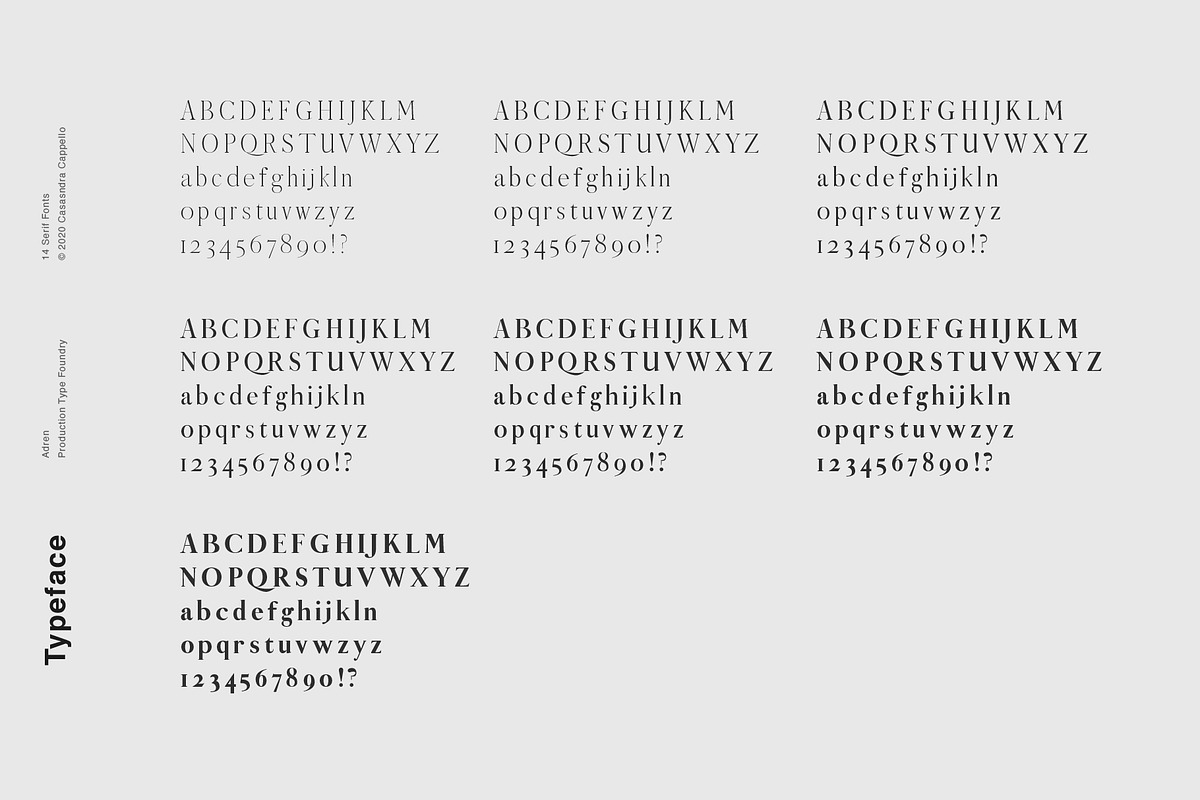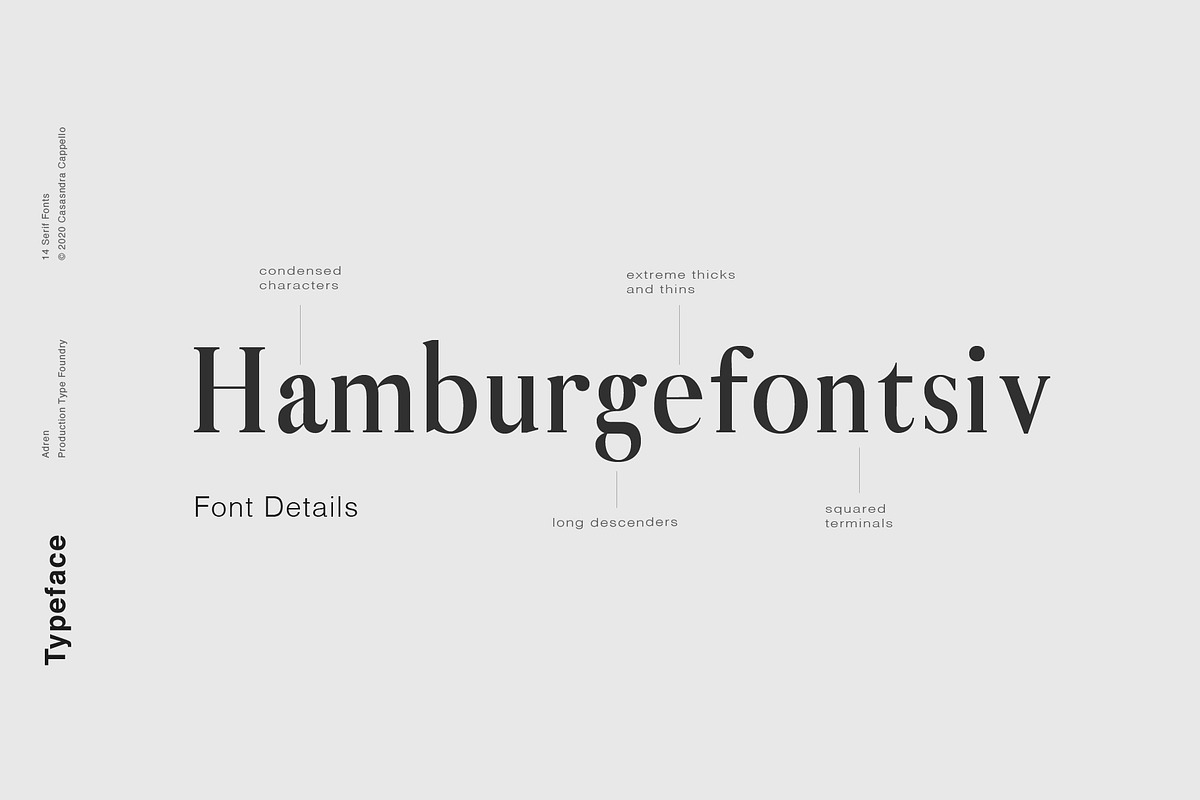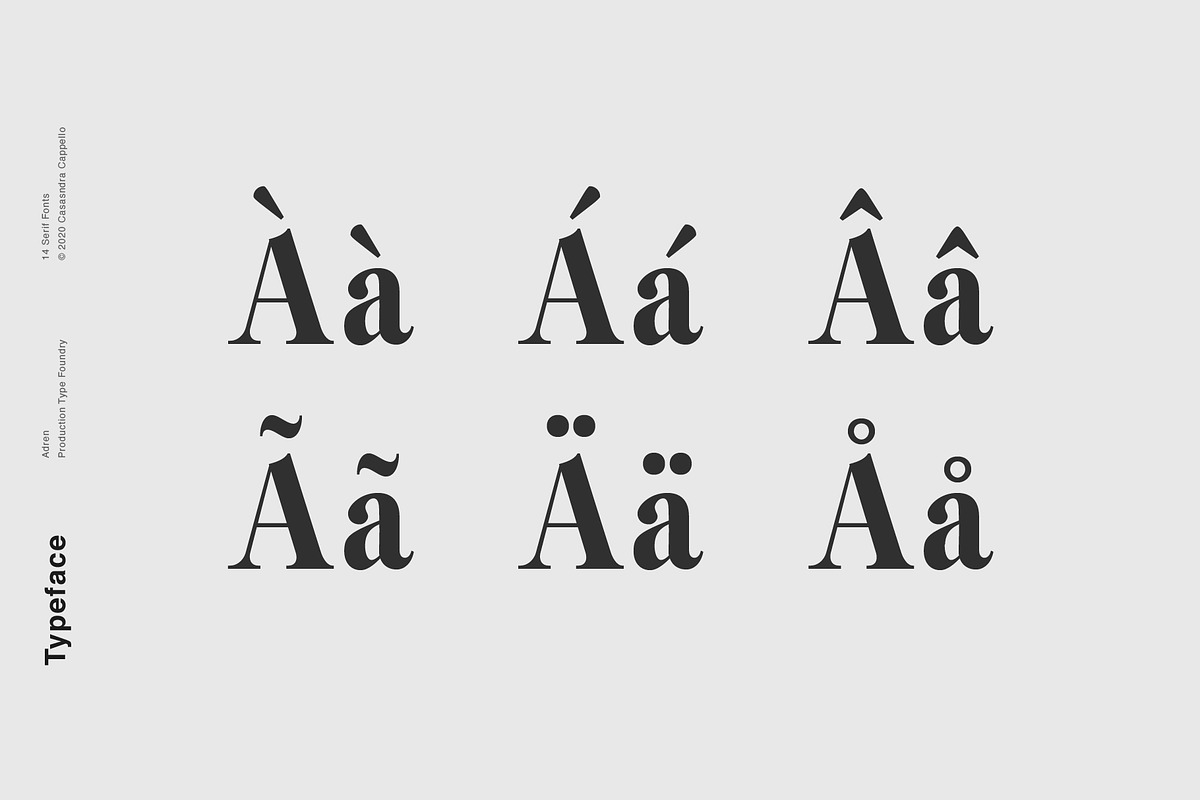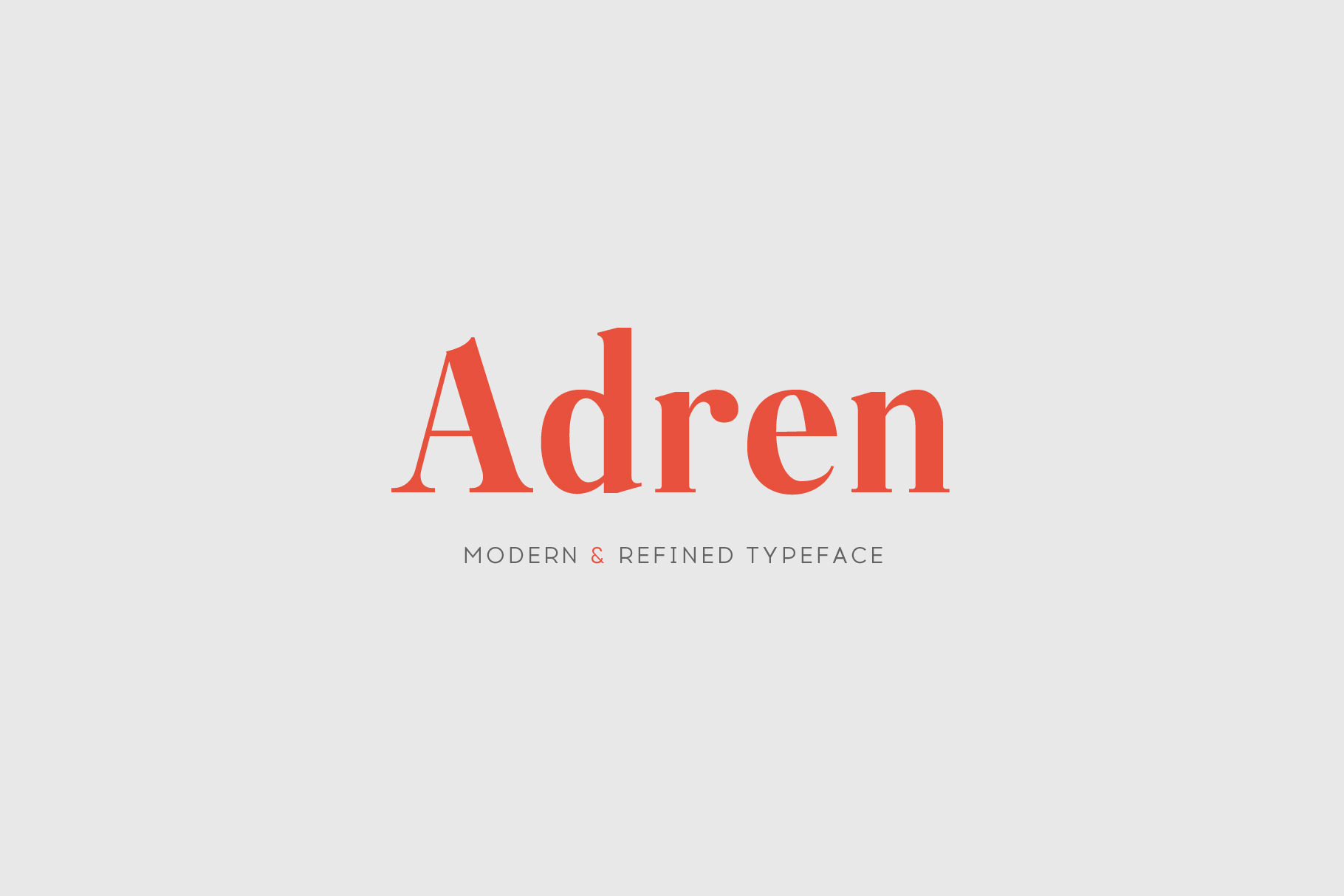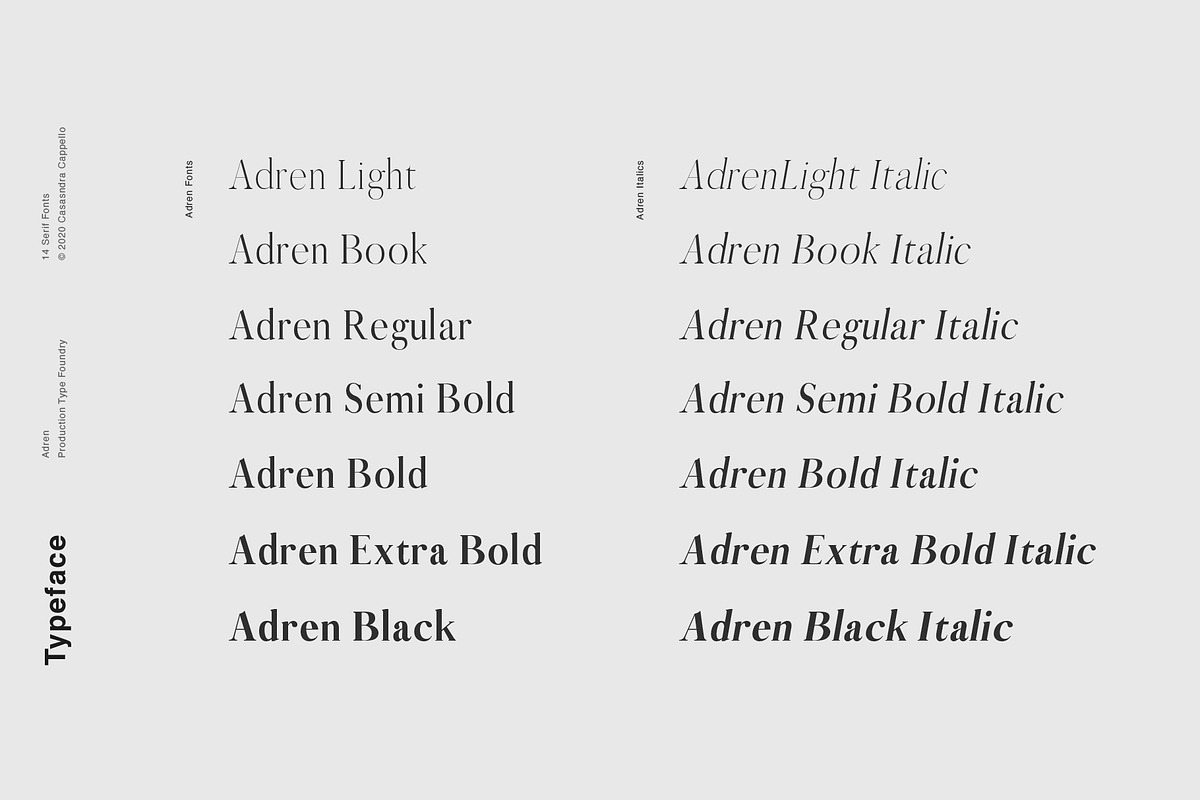
Adren - A Modern & Refined Typeface
Adren is a modern, refined, slightly condensed serif typeface. It is mainly made to be used for headers and subheaders. This font family includes all Latin characters (including accents), numbers, special characters, and punctuation.
Adren includes fourteen fonts in OTF format: seven weights and seven italics.